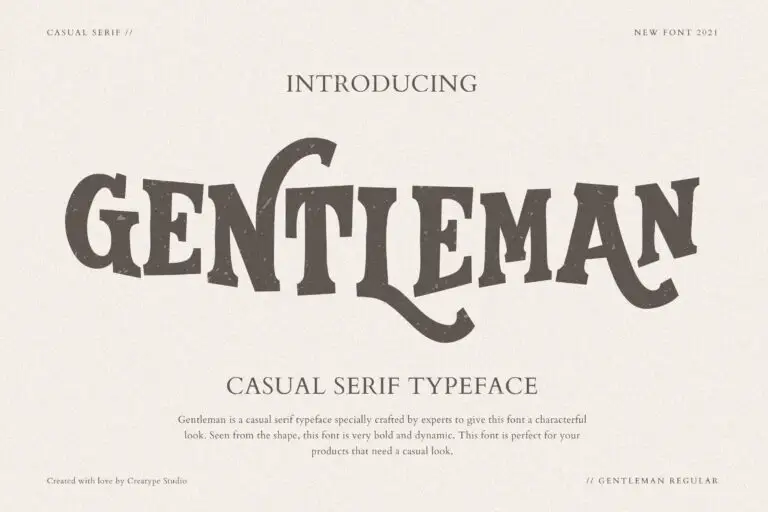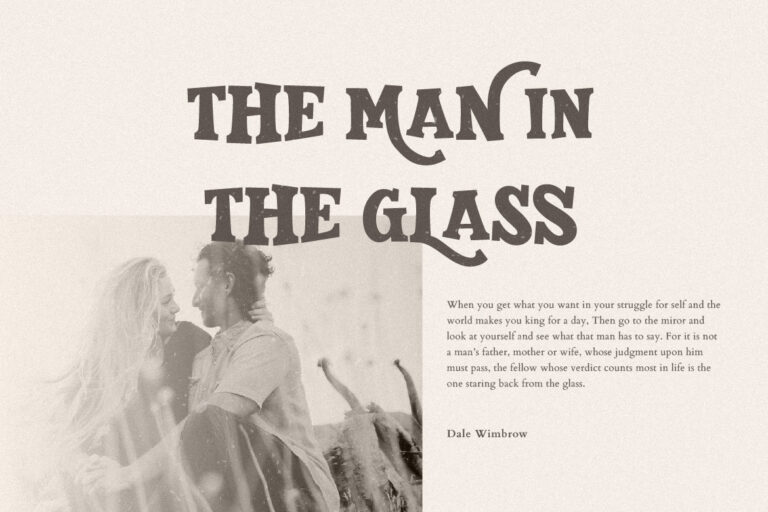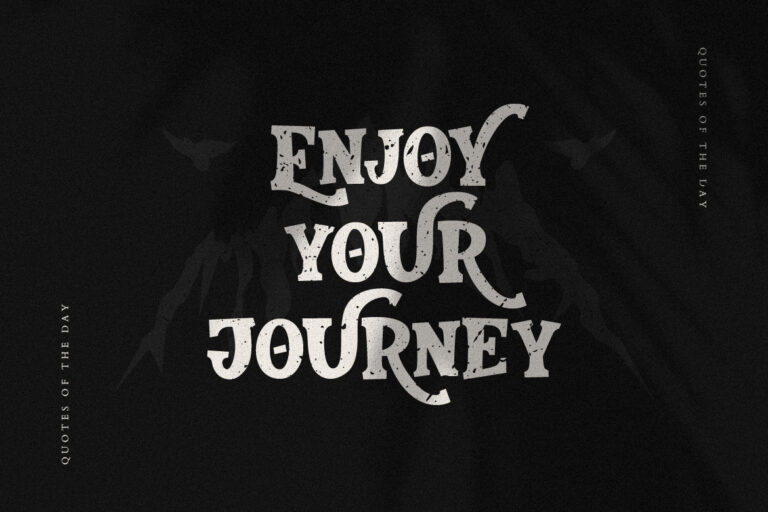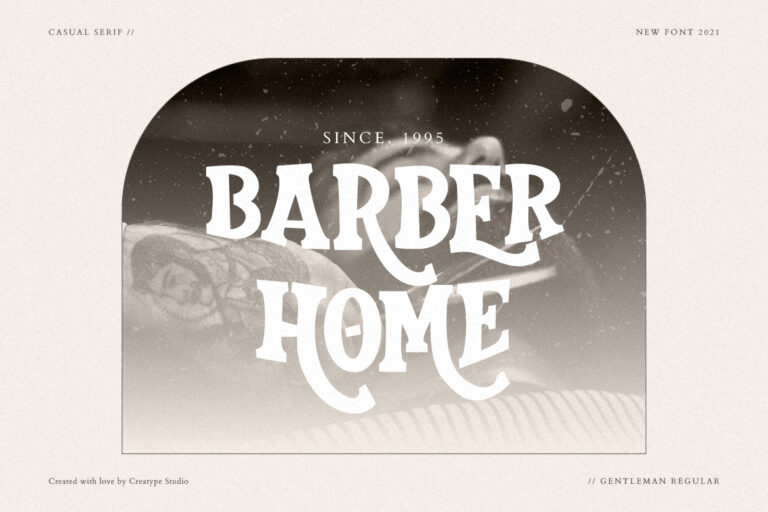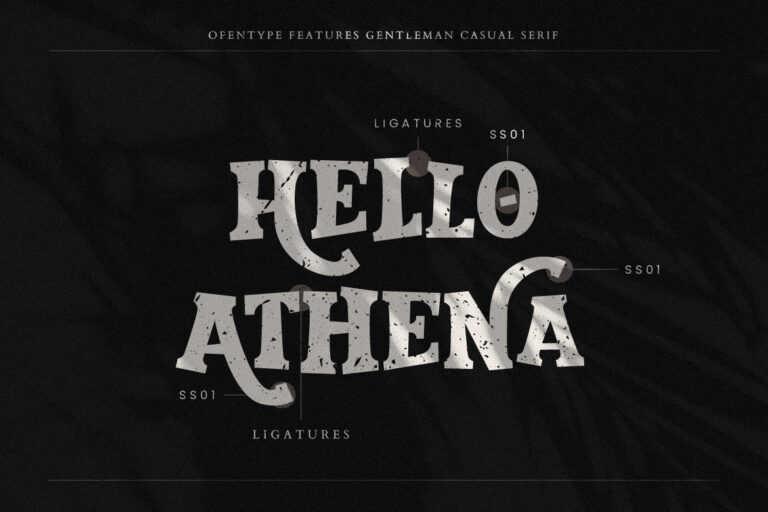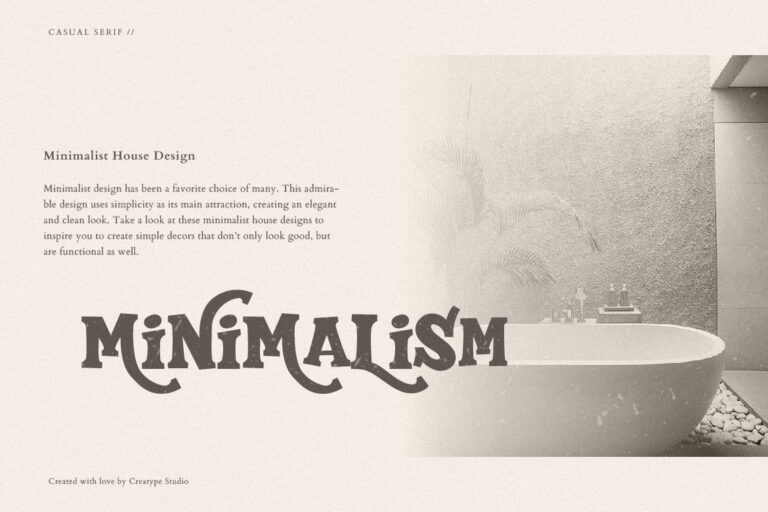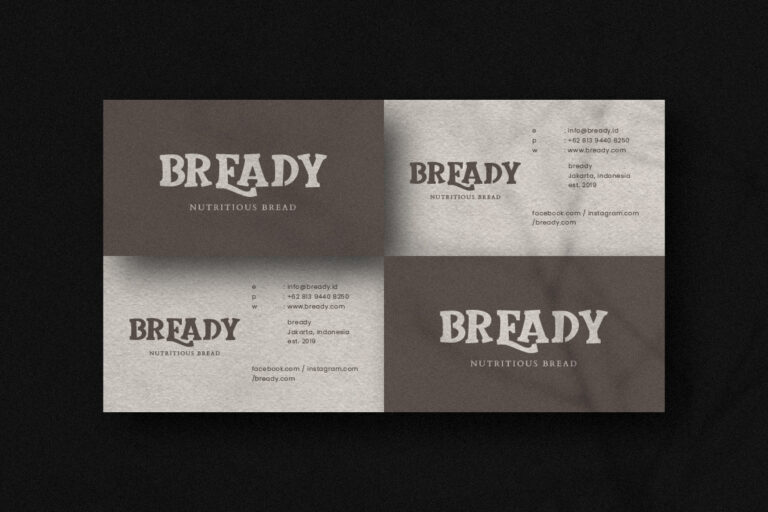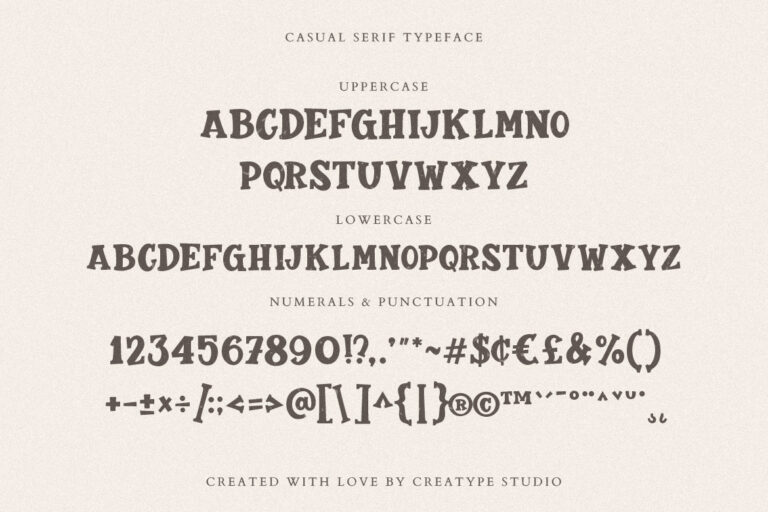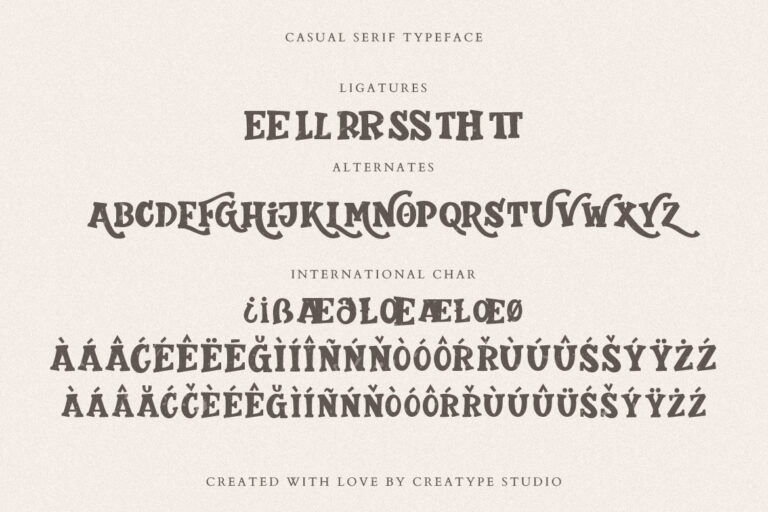
Gentleman Casual Serif
Gentleman is a casual serif typeface made especially for a look that uses a bold feel in it. There is a unique curve in this font, making this font different from the others.
Gentleman is perfect for branding projects, logo, wedding designs, social media posts, advertisements, product packaging, product designs, label, photography, watermark, invitation, stationery and any projects that need handwriting taste.